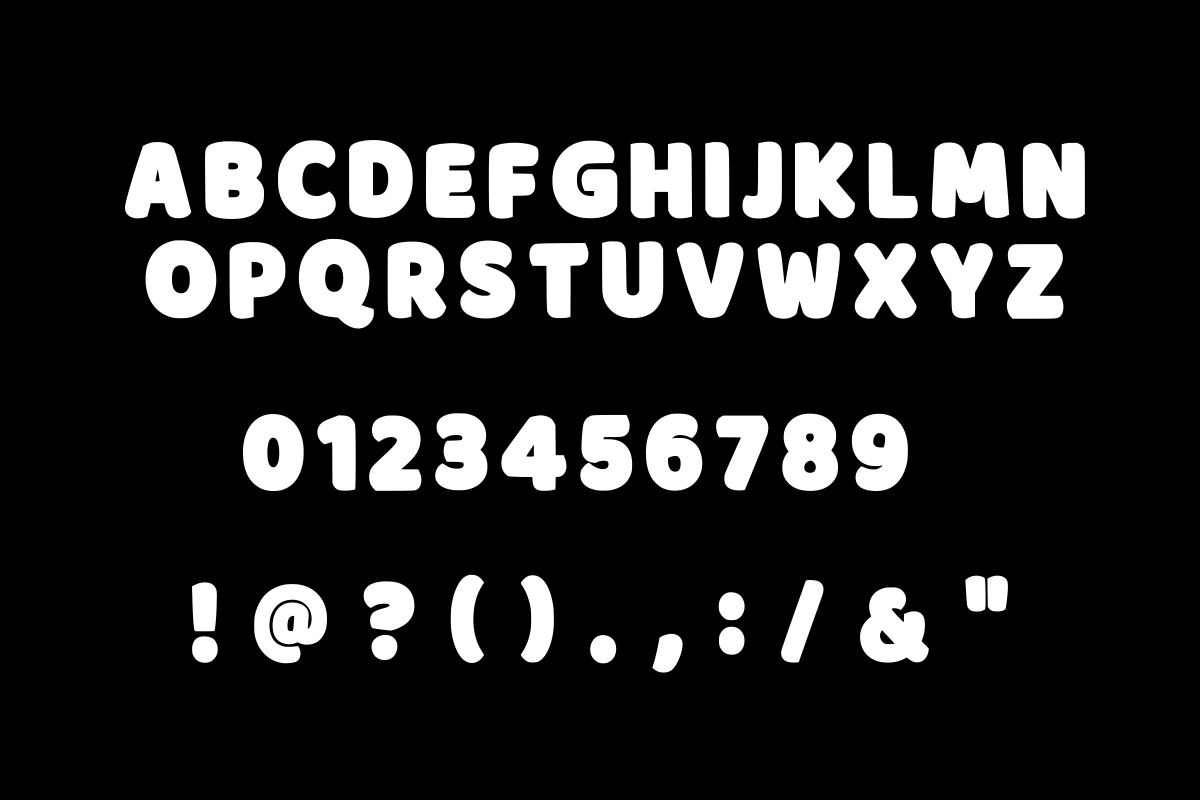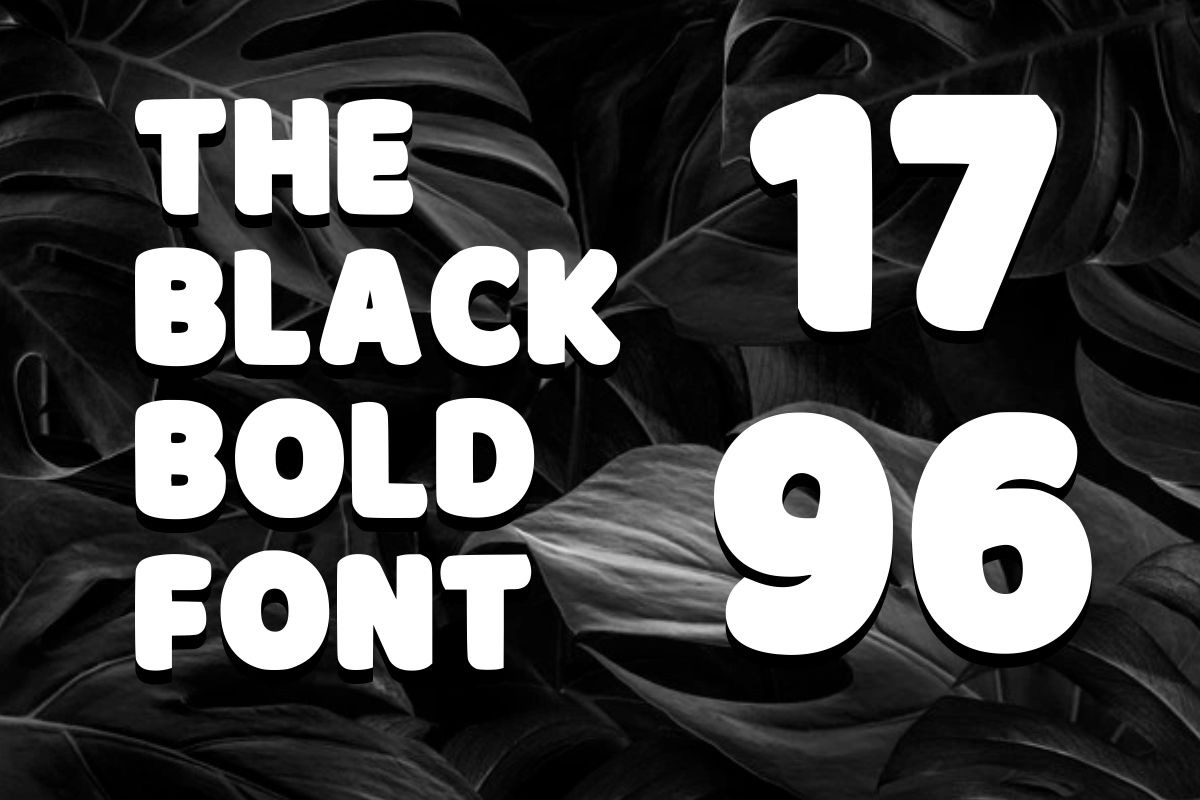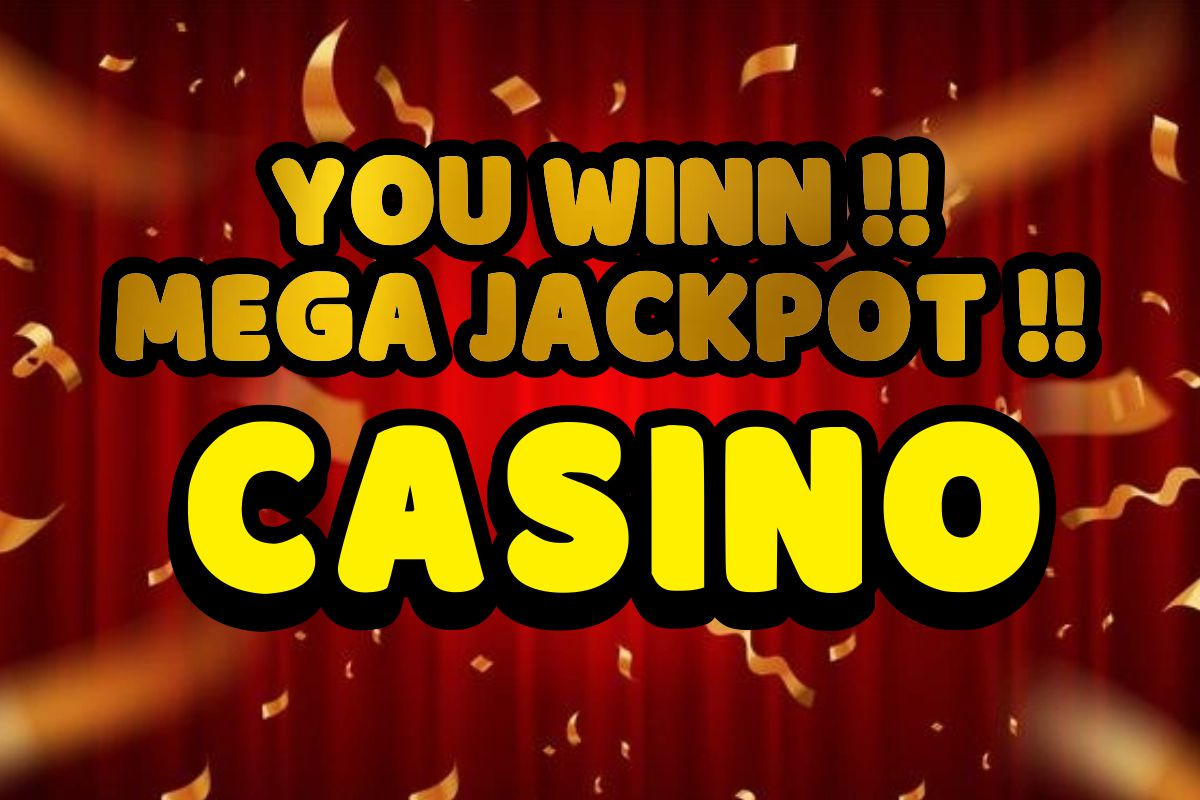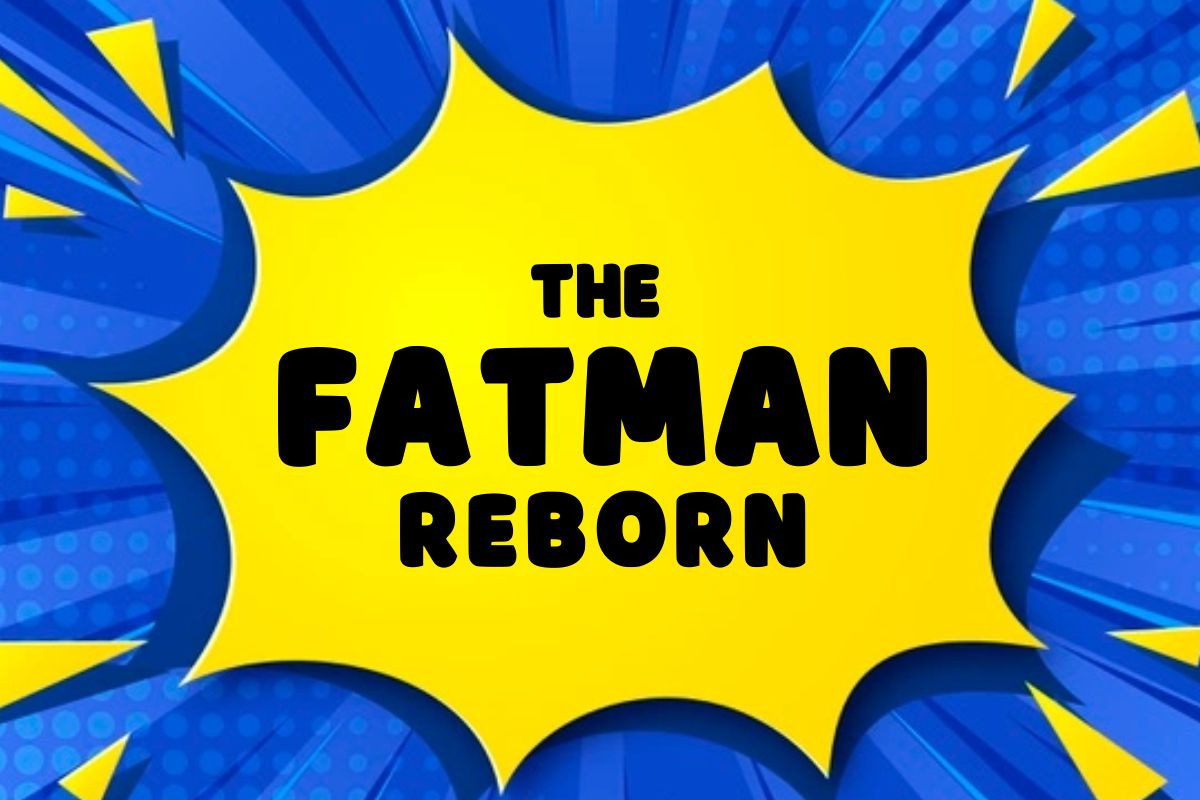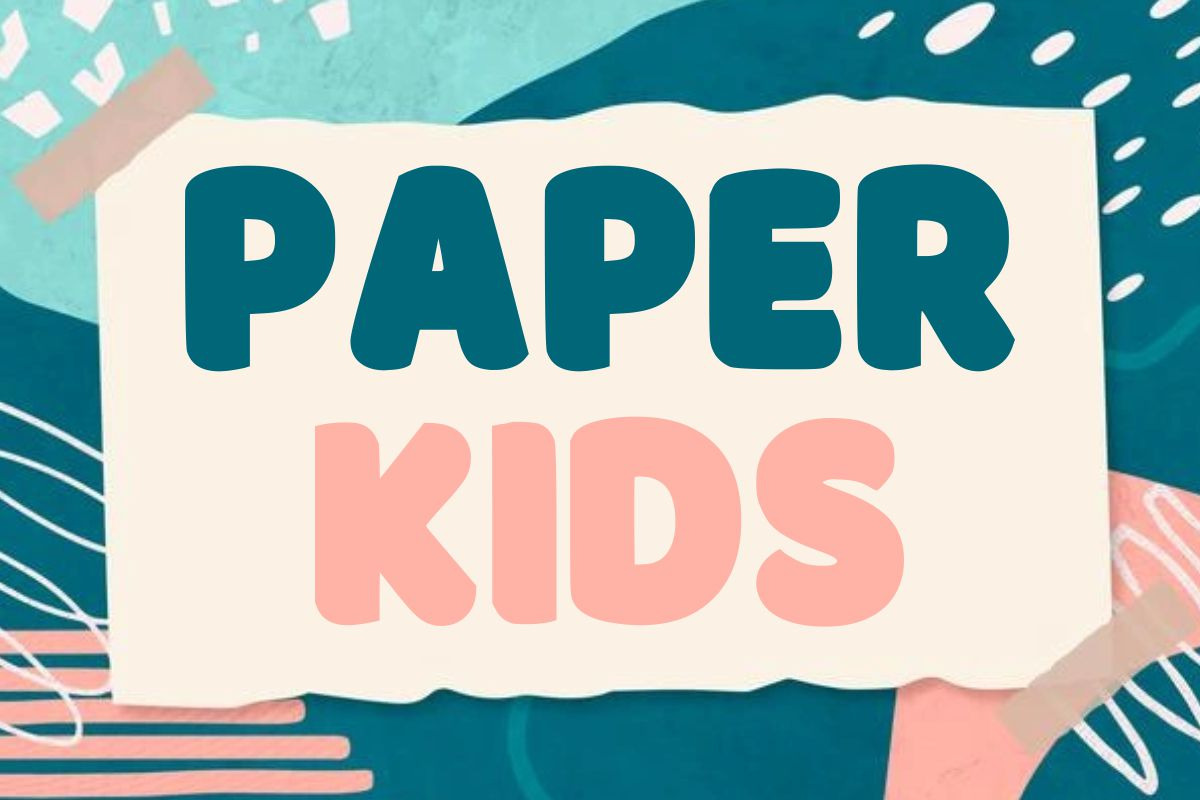
Monster Seafood
Monster Seafood is a cool, bold and thick lettered display font. No matter the topic, this font will be an incredible asset to your fonts’ library, as it has the potential to elevate any creation.